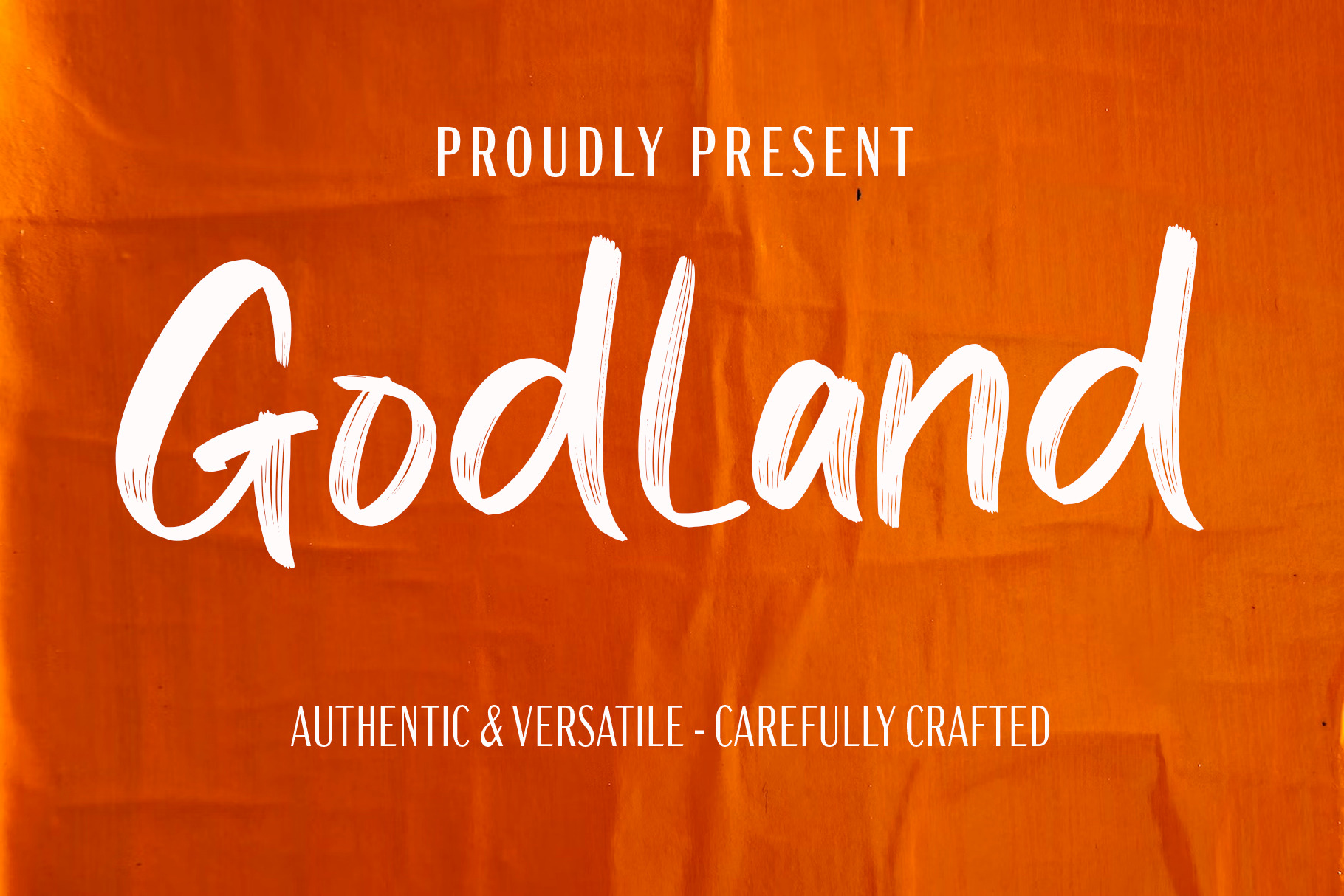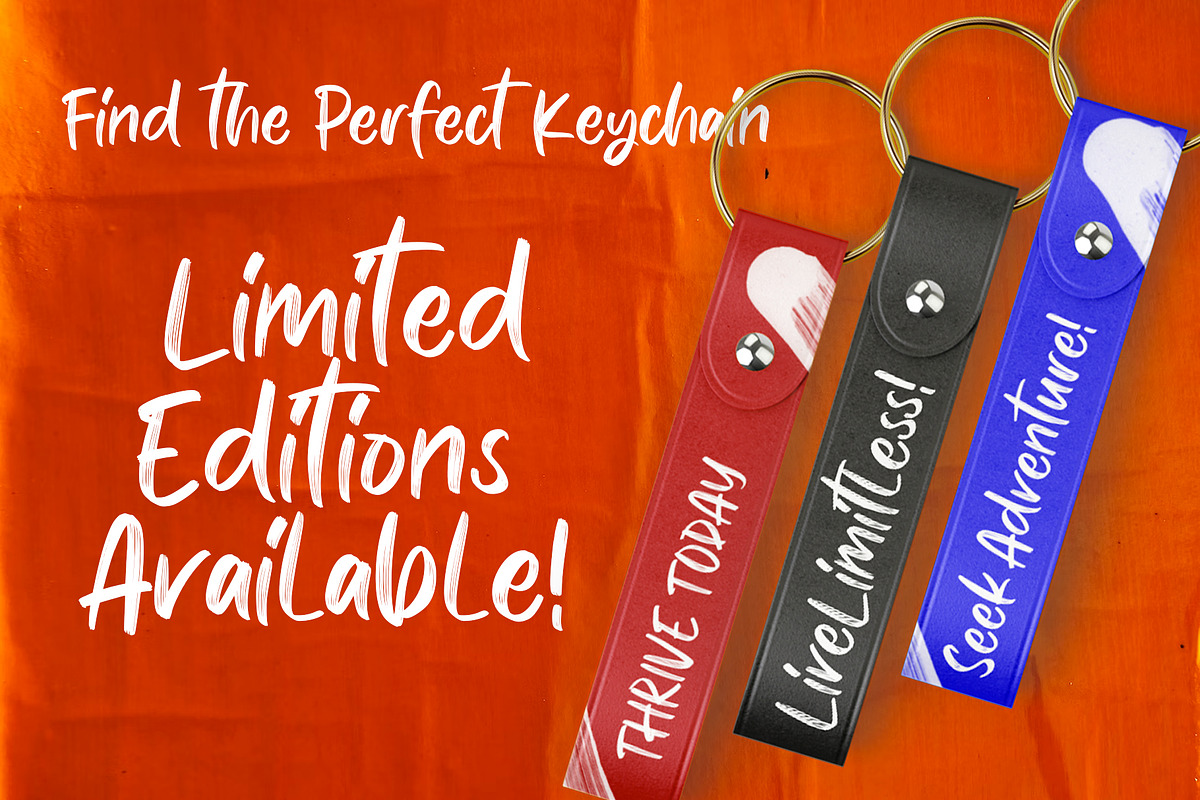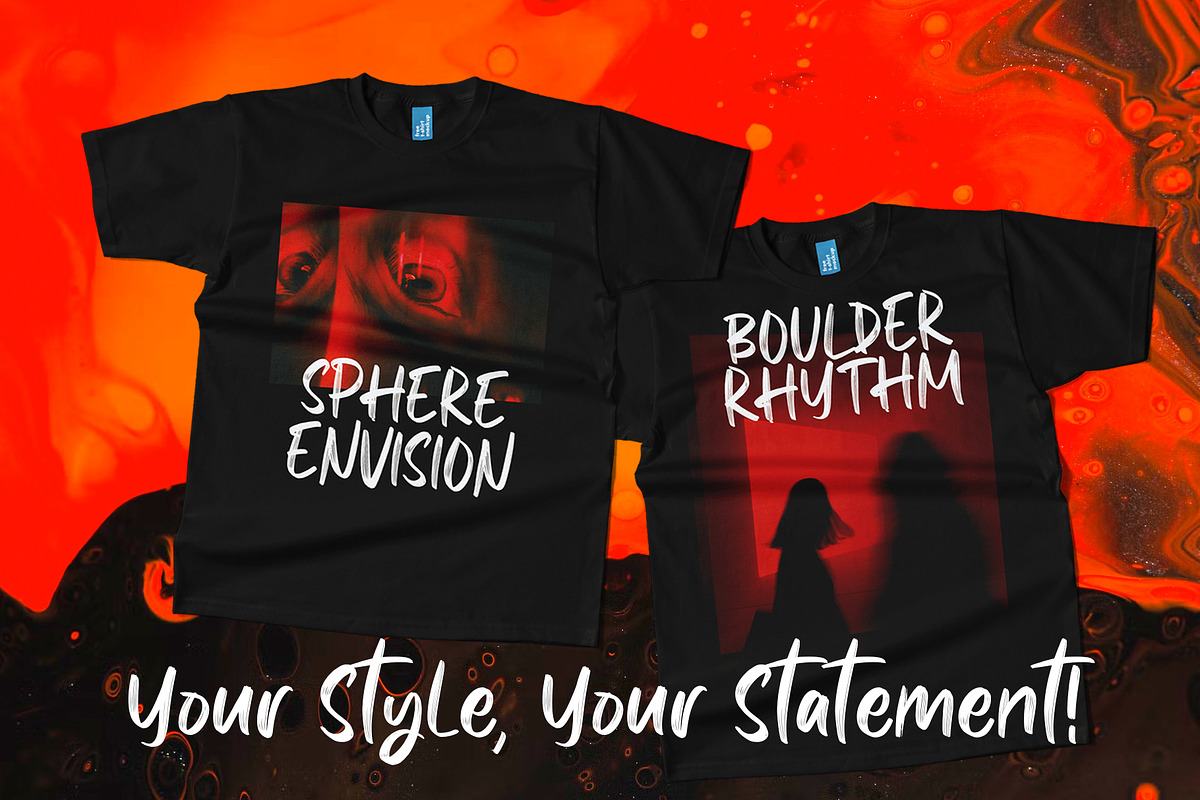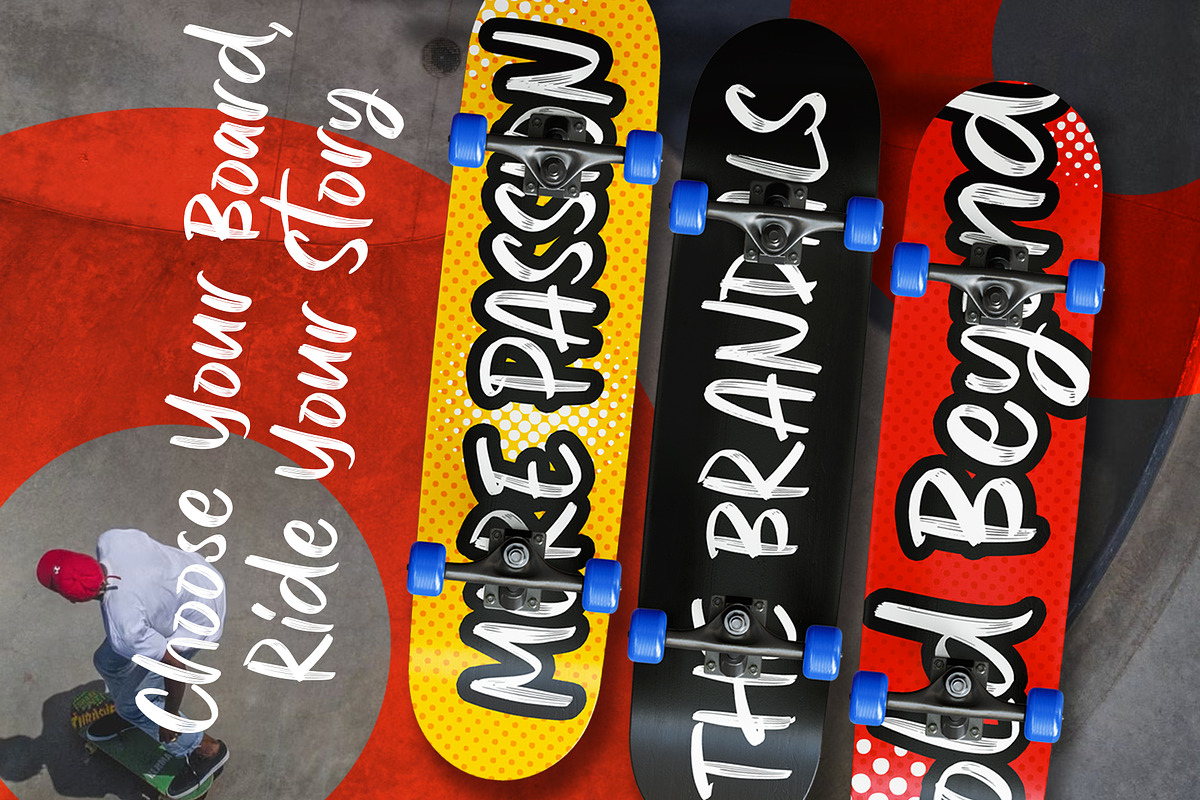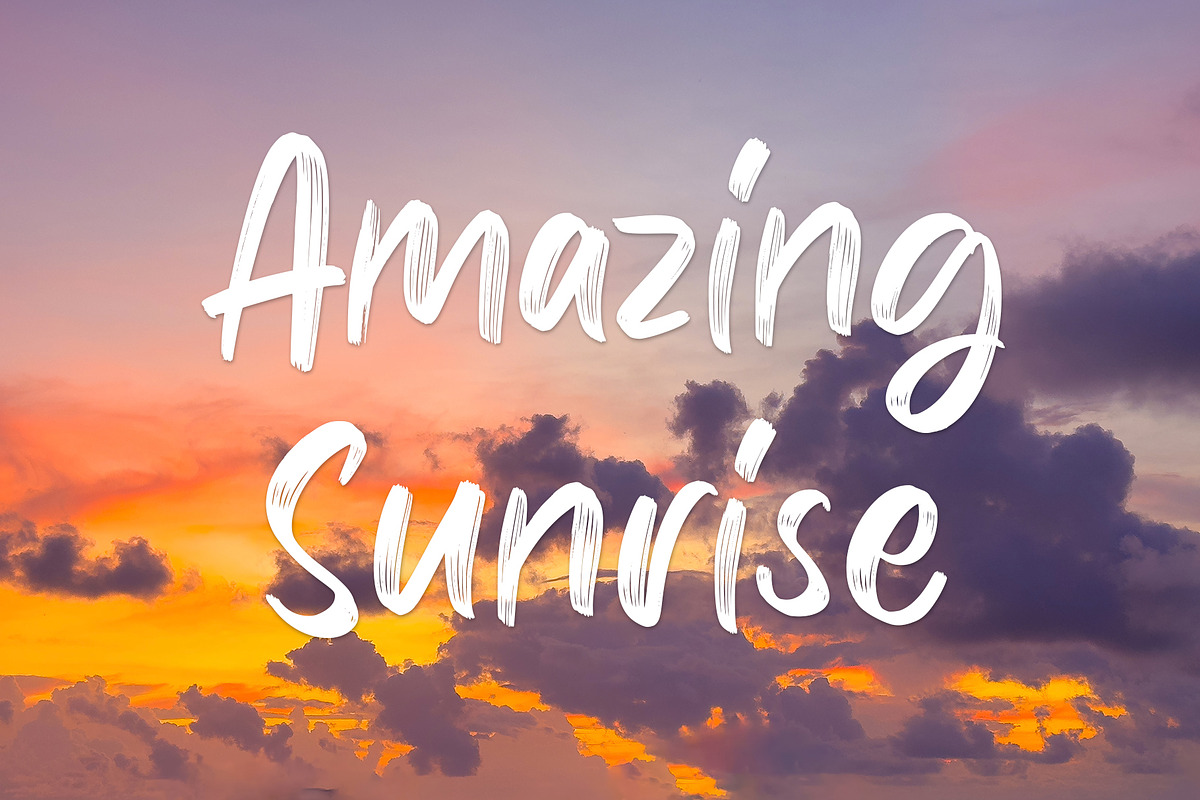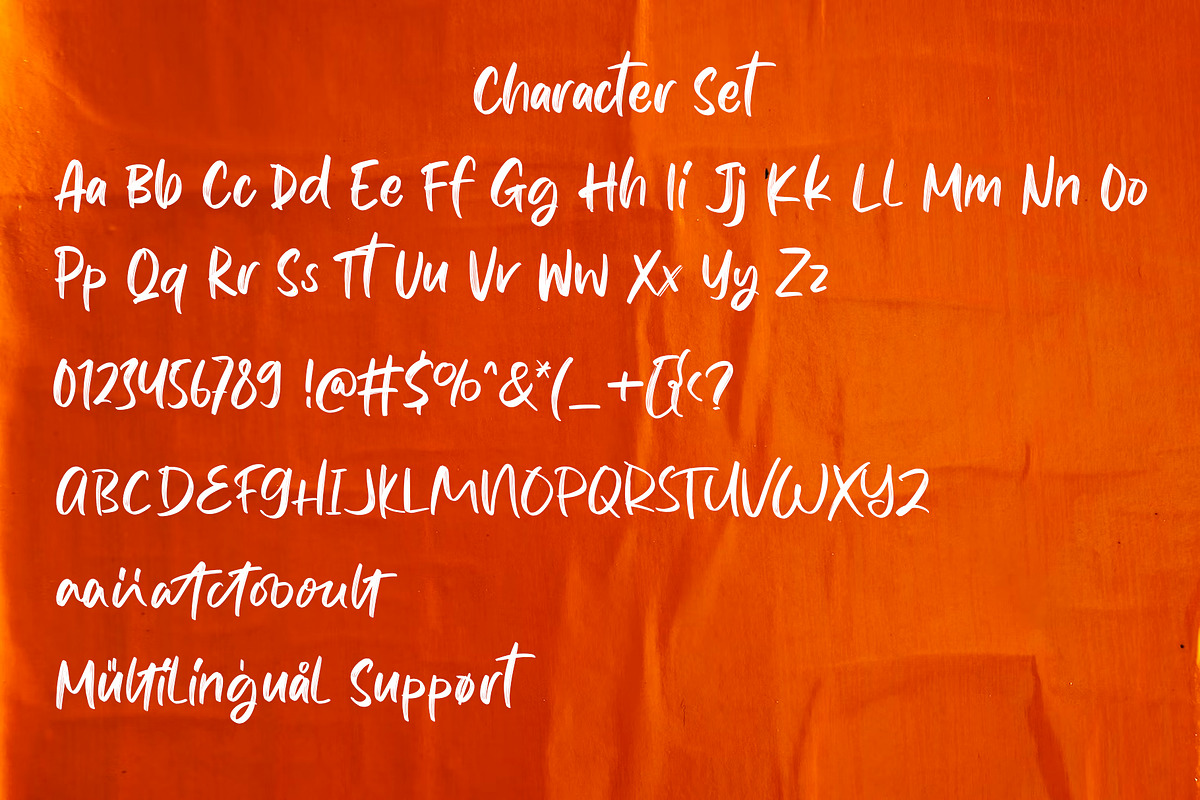
Godland Versatile Script Font
Godland Font is an authentic, versatile script font with a unique, elegant, and modern style.
Godland Font is perfect for branding logos, invitations, social media quotes, and websites.